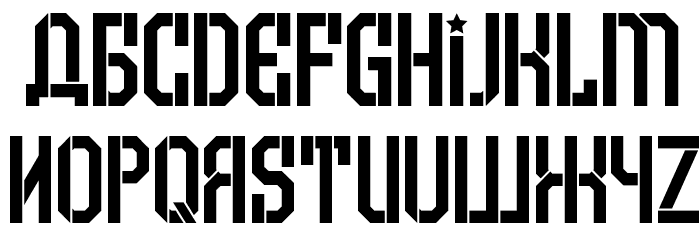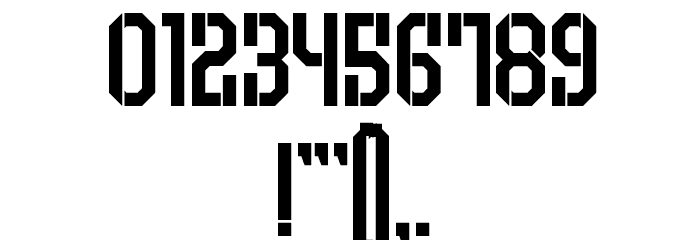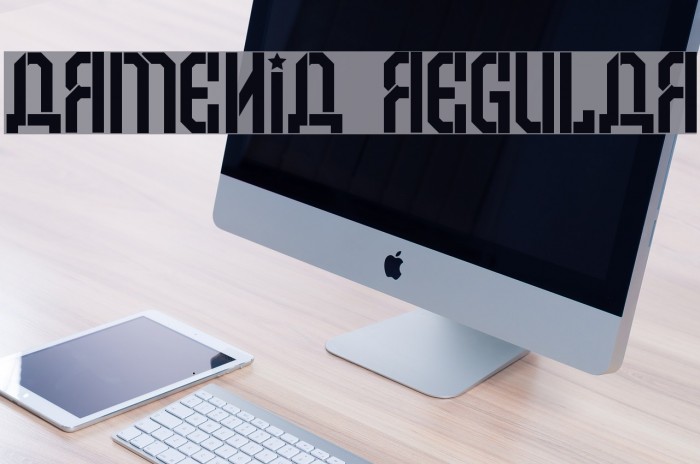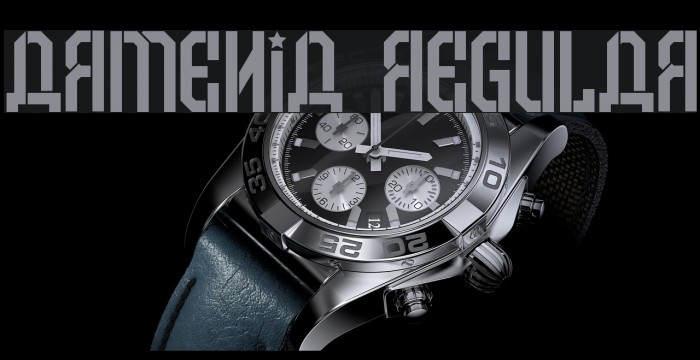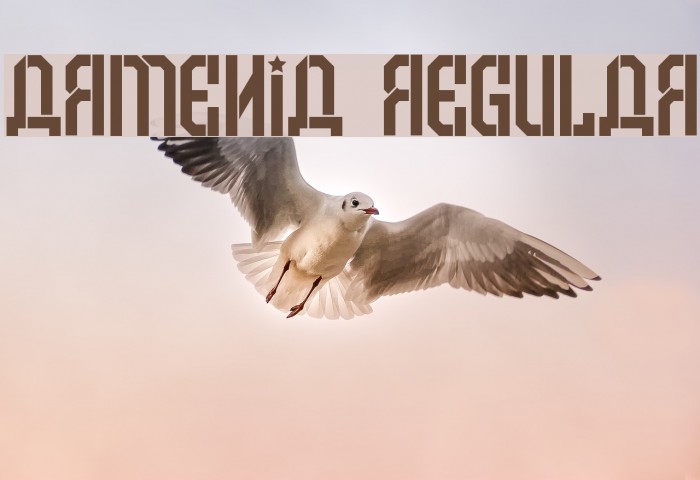
Armenia Regular Font
This font features a bold, geometric design with a strong emphasis on angular shapes and sharp edges. The characters are constructed with a stencil-like appearance, incorporating cut-out sections that add a unique, modern flair. The uppercase letters are particularly striking, with consistent height and width, creating a uniform look. The numerals and special characters maintain this geometric style, ensuring a cohesive appearance across all elements. The font's distinctiveness makes it ideal for attention-grabbing designs.
A bold, geometric font with a modern, stencil-like design.
- Font: Armenia Regular